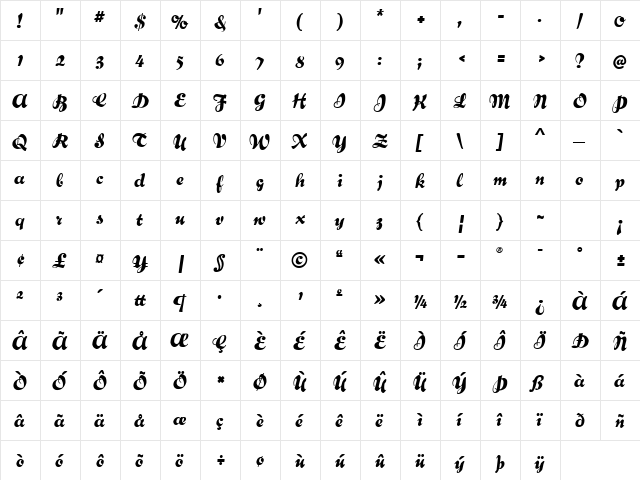
BernhardBrushscriptSG Regular
Design Context for BernhardBrushscriptSG Typeface
BernhardBrushscriptSG brings a calligraphic fluidity to the page — its connecting strokes and expressive curves give it an unmistakably human quality.
Font Pairing: Combine BernhardBrushscriptSG with a simple geometric sans for maximum contrast — the tension between flowing curves and clean structure is a classic typographic pairing.
Pro Tip: Use BernhardBrushscriptSG for short runs of text — names, titles, or taglines. Extended body copy in script faces tires the eye quickly.